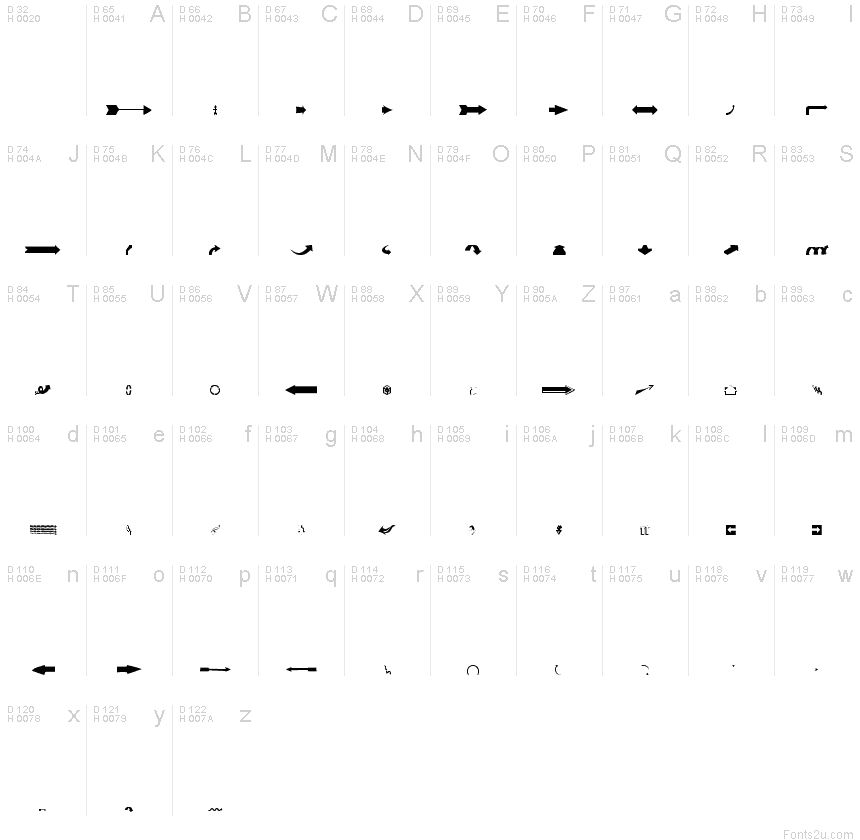
Arrows#1 by Ozmee is a free arrow dingbat font built from assertive directional symbols. Most forms use solid, angular heads and substantial shafts, with a few twisting or rippling strokes that introduce a hand-drawn jolt. The silhouettes are blunt and graphic.
Designers working on youth-oriented events or action-themed entertainment can use these marks in posters, game graphics, and merchandise, where the varied arrows can signal movement or point to key information. Their mix of rigid geometry and unruly curves also suits comic, street-art, and skateboarding themes.